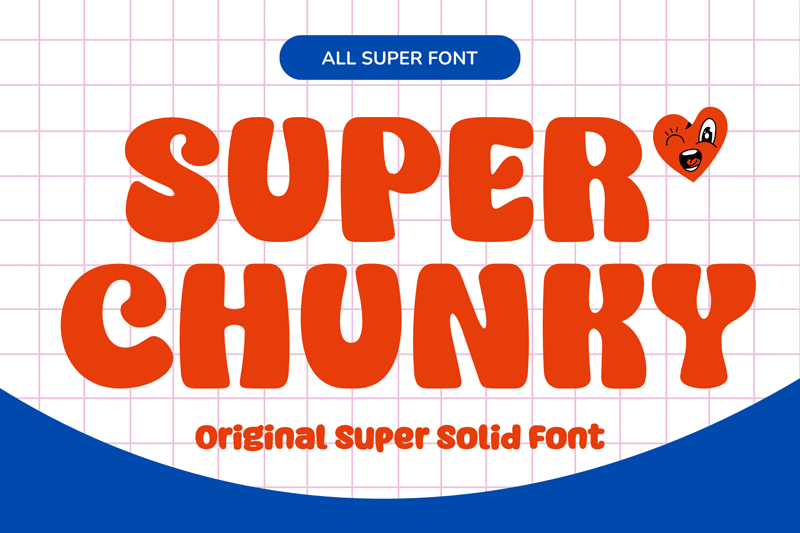
Font name: | Super Chunky |
This font is for PERSONAL USE ONLY!. If you want to use this font for commercial purposes, you will need to purchase a commercial license. You can purchase a commercial license at https://allsuperfont.com/product/super-chunky/ Introducing Super Chunky: The Font That Shouts Without Saying a Word Super Chunky isn�t your average font. It�s a bold statement piece designed to grab attention and leave a lasting impression. Forget subtlety, Super Chunky embraces chunky letterforms with unyielding thickness and unwavering confidence. |